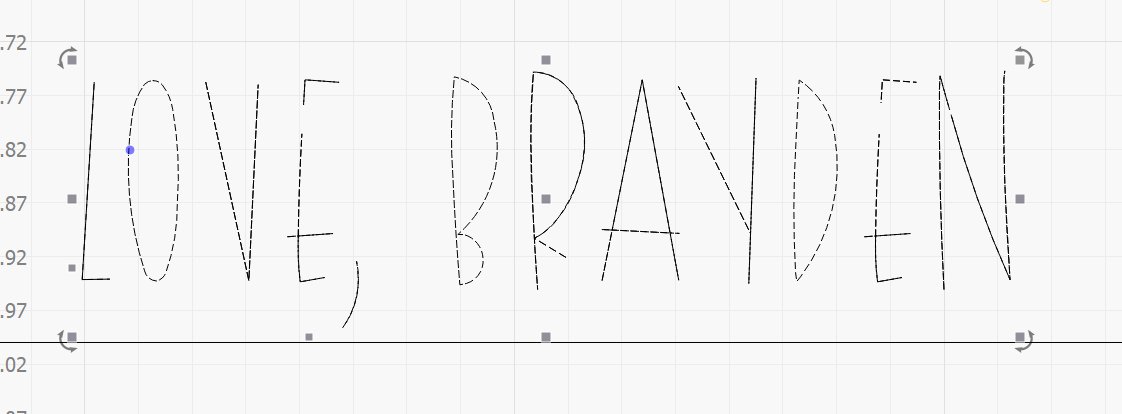
SKETCH FONT BUNDLE - 4 Single Line Fonts
TRUE SINGLE LINE FONTS! Grab these 4 sketch fonts in one download.
We recommend using these fonts in your Cricut or Silhouette software for sketch, engraving, foil quill, and etching projects. (Perfect for Holiday cards!) We do not recommend its use in printed projects or in software like Microsoft Word because the letters are too thin.